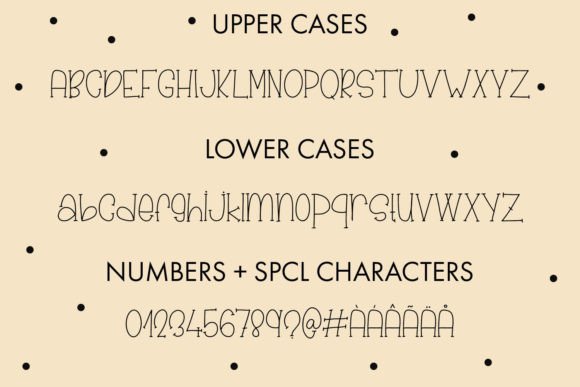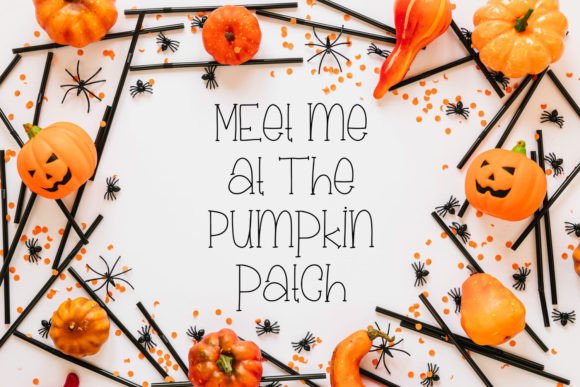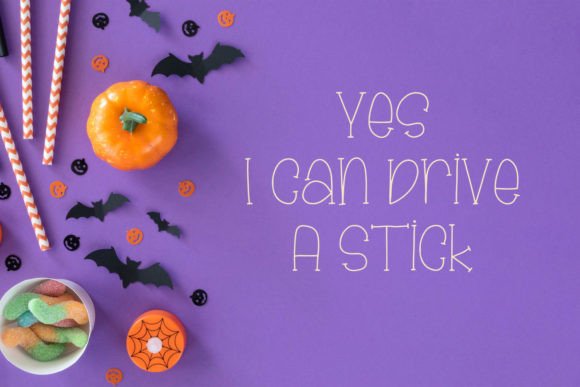
Haystack Font: Add a Touch of Whimsy to Your Designs with this Quirky Handwritten Font
Are you looking for a font that can add a dash of personality to your designs? Look no further than the Haystack Font! This fun and quirky handwritten font is perfect for designers and crafters who want to infuse their projects with a farmhouse Halloween vibe. With its unique and playful style, Haystack Font is ideal for a wide range of projects, from DIY crafts to digital designs.
What is Haystack Font?
Haystack Font is a handwritten font that is designed to evoke the feeling of a rustic farmhouse during the Halloween season. Its quirky and charming style makes it perfect for designers and crafters who want to add a touch of whimsy to their projects. The font features irregular lettering and a playful feel, giving it a distinctly handmade look that is sure to capture the attention of your audience.
Characteristics of Haystack Font
So, what makes Haystack Font so special? Here are some of its key characteristics:
- Handwritten style: Haystack Font is a handwritten font that has been carefully crafted to mimic the look of handwritten lettering. Its irregular strokes and playful feel give it a distinctly human touch.
- Farmhouse Halloween vibe: The font is designed to evoke the feeling of a rustic farmhouse during the Halloween season. Its quirky style makes it perfect for projects that require a touch of whimsy and playfulness.
- Quirky and charming: Haystack Font is a font that is designed to stand out. Its quirky and charming style makes it perfect for designers and crafters who want to add a touch of personality to their projects.
Uses for Haystack Font
So, what can you use Haystack Font for? The possibilities are endless! Here are some ideas to get you started:
- DIY projects: Haystack Font is perfect for DIY projects, such as crafting, scrapbooking, and paper crafting. Its quirky style makes it ideal for creating handmade cards, gift tags, and other paper crafts.
- Digital designs: The font is also perfect for digital designs, such as social media graphics, blog posts, and website headers. Its playful style makes it ideal for adding a touch of personality to your digital designs.
- Fall and Halloween projects: Haystack Font is specifically designed for fall and Halloween projects. Its farmhouse Halloween vibe makes it perfect for creating spooky and festive designs for the season.
Tips for Using Haystack Font
Here are some tips for using Haystack Font in your designs:
- Pair it with other fonts: Haystack Font pairs well with other fonts, such as serif and sans-serif fonts. Experiment with different font combinations to create a unique look.
- Use it for headings and titles: The font is perfect for headings and titles, where its quirky style can really shine.
- Experiment with colors: Haystack Font looks great in a variety of colors, from bold and bright to muted and pastel. Experiment with different colors to find the perfect look for your design.
In conclusion, Haystack Font is a fun and quirky handwritten font that is perfect for designers and crafters who want to add a touch of personality to their projects. Its farmhouse Halloween vibe makes it ideal for fall and Halloween projects, while its playful style makes it perfect for DIY crafts and digital designs. With its unique and charming style, Haystack Font is sure to become a favorite in your font collection.